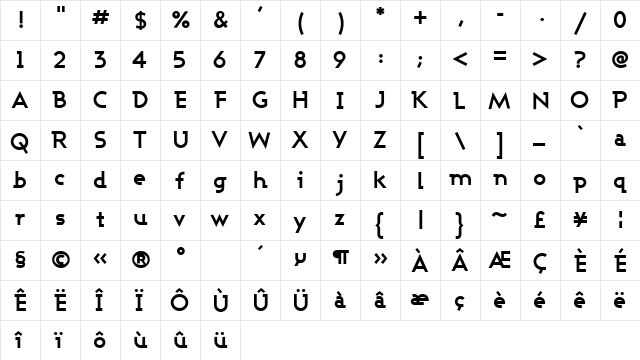
AshbyGL Bold Regular
| Copyright | Used by Galeries Lafayette, this is based on ASHBY by Woodard at Apostrophic L'ab. Modifications include differences in character complements, and in glyph shapes and sizing. |
Design Context for AshbyGL Bold Typeface
AshbyGL Bold offers clean, dependable letterforms without strong stylistic allegiance, making it a practical choice for designers who need flexibility. The heavy weight commands attention and anchors typographic hierarchies.